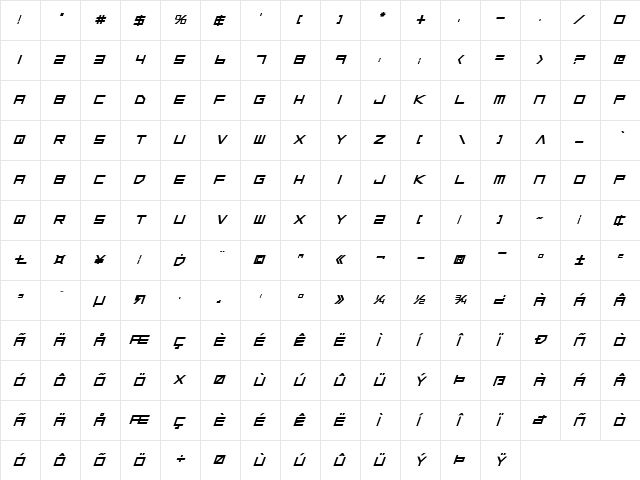
Low Gun Screen Bold Italic Bold Italic
Design Context for Low Gun Screen Bold Italic Typeface
Low Gun Screen Bold Italic is a composed and adaptable typeface that performs quietly and consistently across a wide range of design contexts. The slanted form adds forward momentum and visual energy. Its bold stroke weight gives it real presence on the page.
Pro Tip: Try Low Gun Screen Bold Italic for annotation and caption copy alongside an upright companion — the contrast in angle creates a dynamic but ordered typographic system.